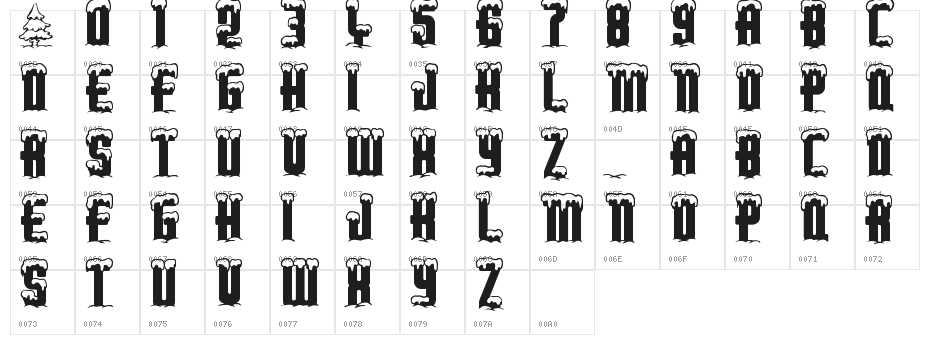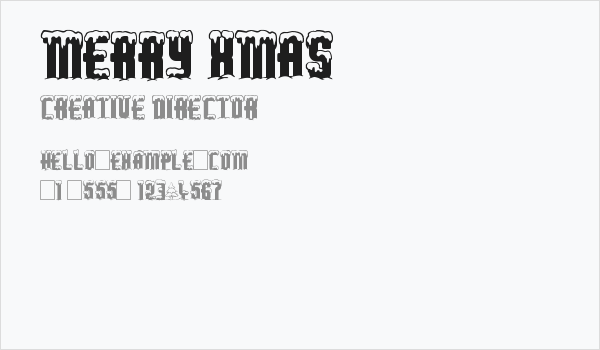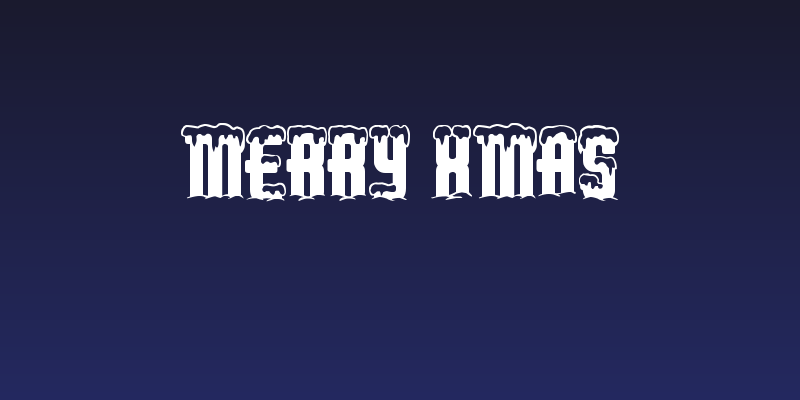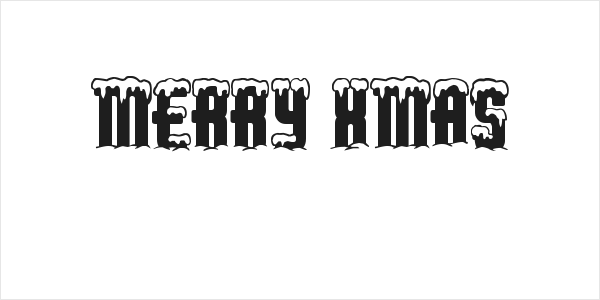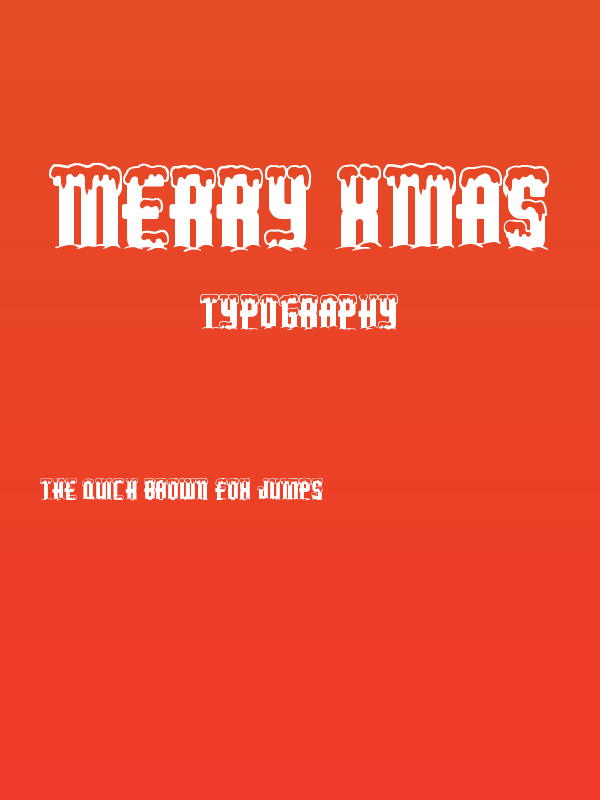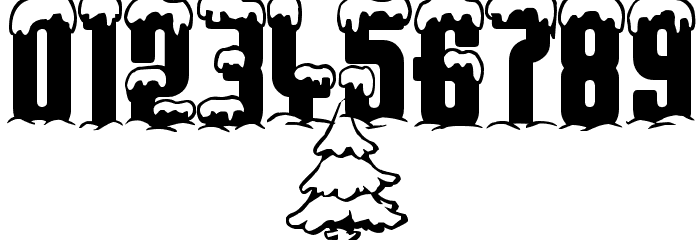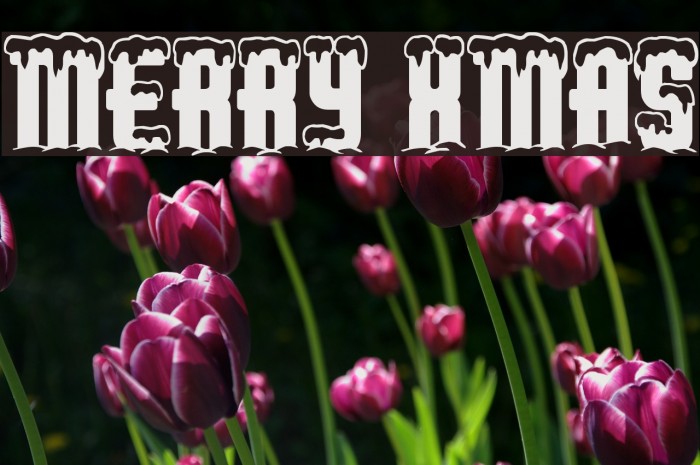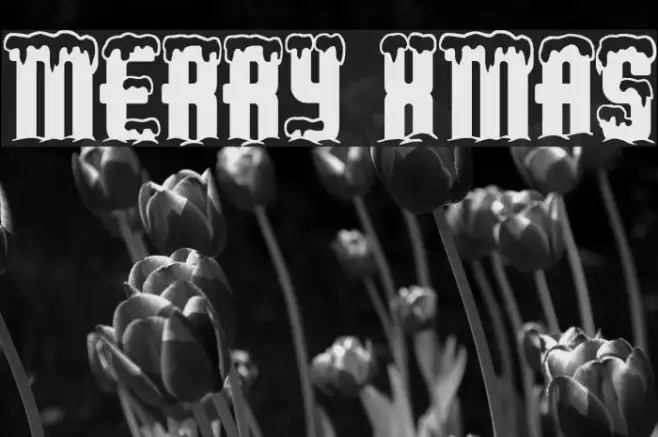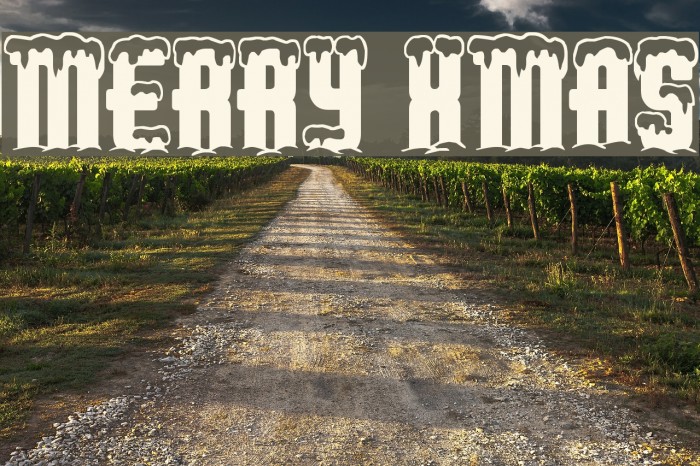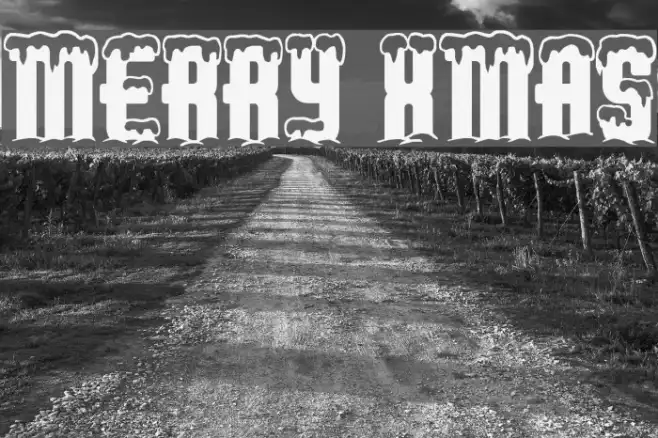
Merry Xmas Font
Merry Xmas Description
This font features a festive and decorative style, reminiscent of winter and holiday themes. Each character is adorned with a snow-like effect on top, giving it a unique and playful appearance. The bold, blackletter-inspired letterforms are both striking and legible, making them suitable for eye-catching designs. The characters are evenly spaced, with a medium contrast in stroke thickness, enhancing readability while maintaining a decorative flair. This font is perfect for seasonal projects, adding a touch of holiday spirit to any design.
| Proposed Projects | Ideal for holiday cards, festive banners, seasonal advertisements, and winter-themed event invitations. |